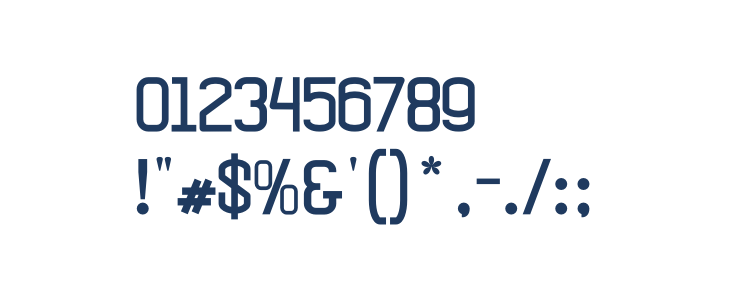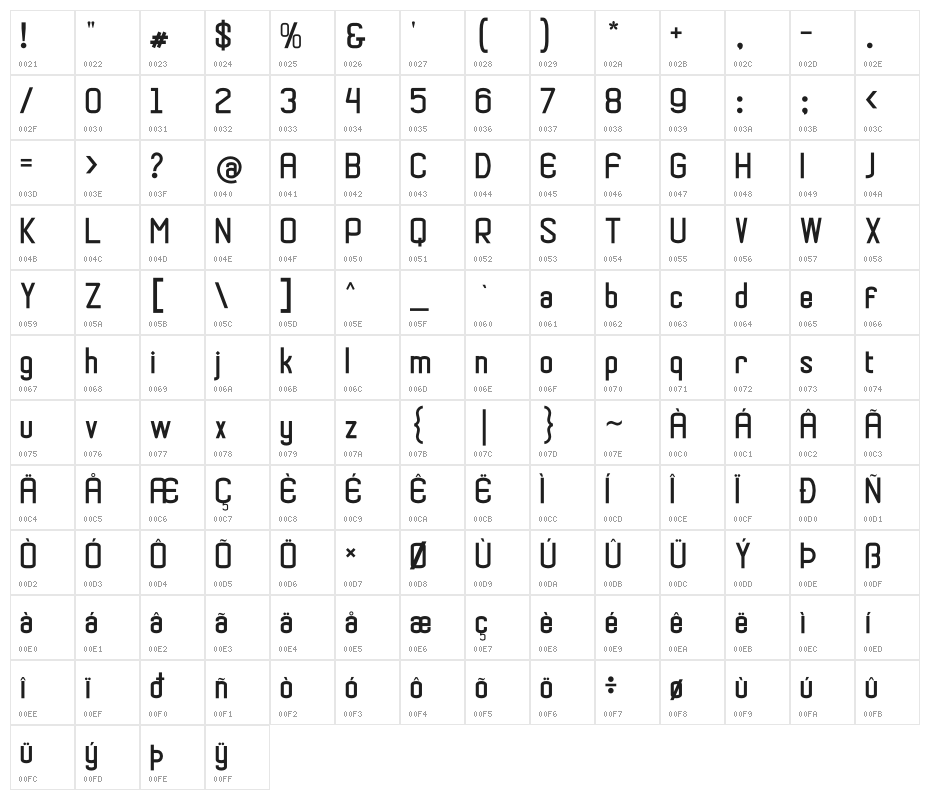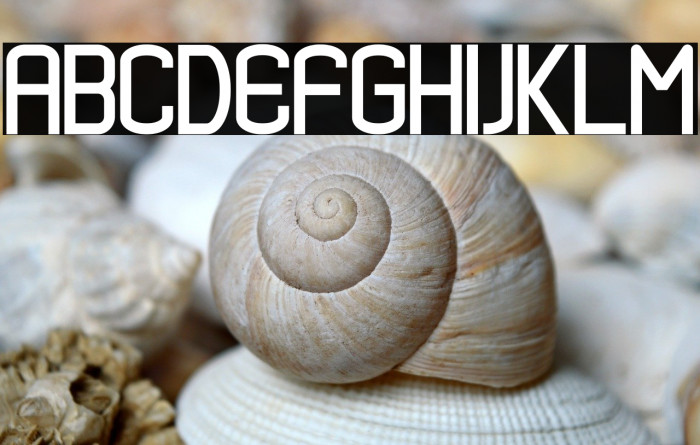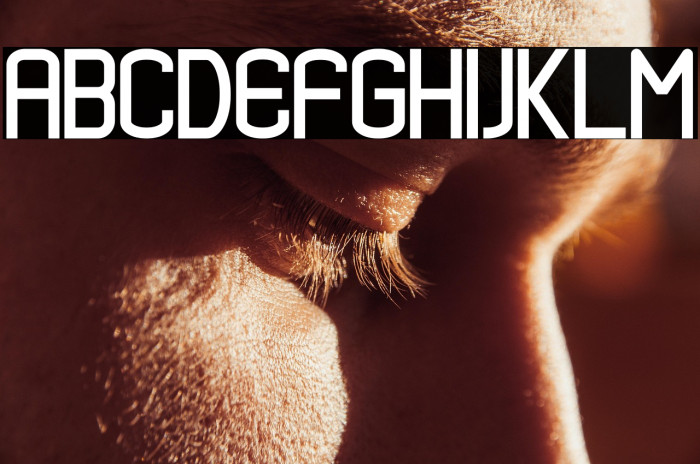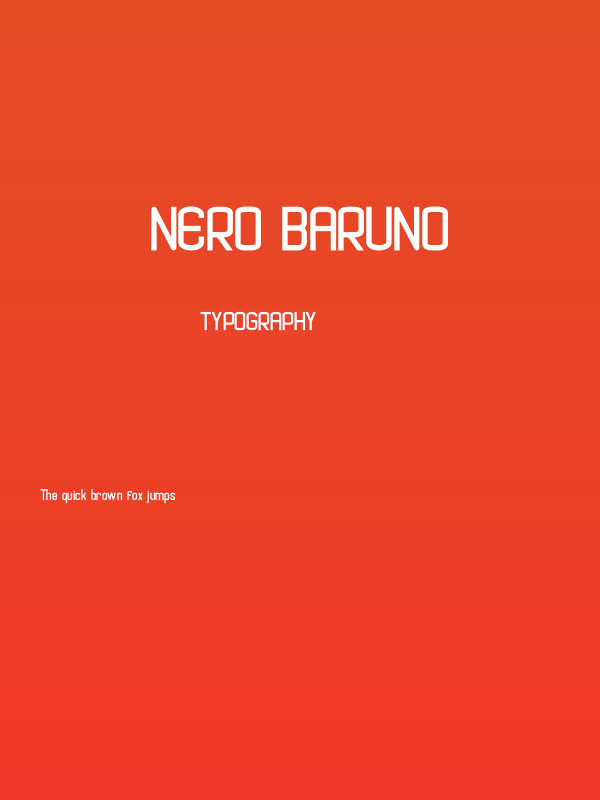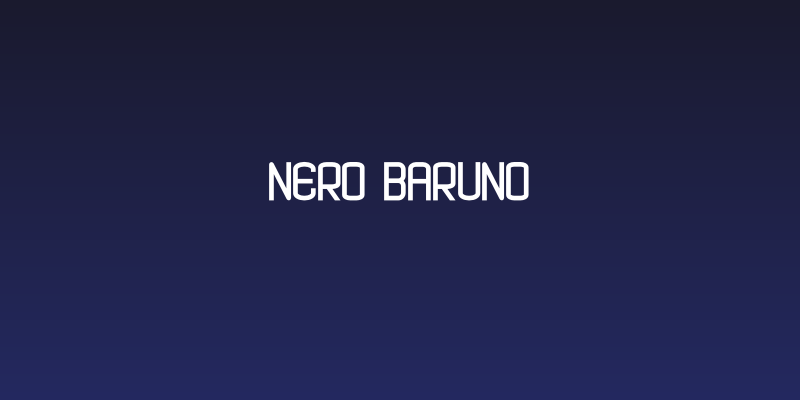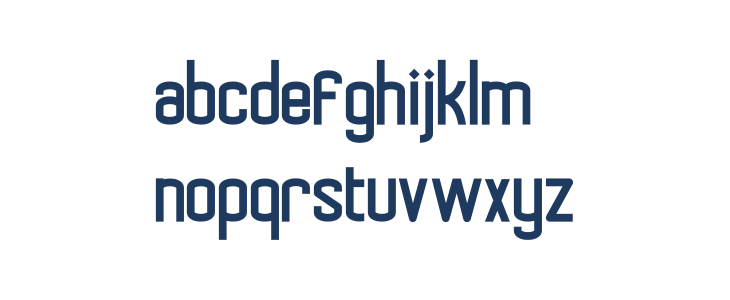
Nero Baruno Font
Nero Baruno Description
This font features a modern, geometric sans-serif style with clean, straight lines and a uniform stroke width. The characters are slightly condensed, giving it a compact appearance. The uppercase letters are bold and assertive, while the lowercase letters maintain a consistent height, enhancing readability. The numerals are distinct and well-proportioned, making them suitable for various applications. Special characters are designed with the same geometric precision, ensuring a cohesive look across all elements. This font's simplicity and clarity make it versatile for both digital and print media.
| Use Case | Headlines, Logos, Digital Media |
| Proposed Projects | Ideal for branding, advertising, web design, and editorial layouts. |